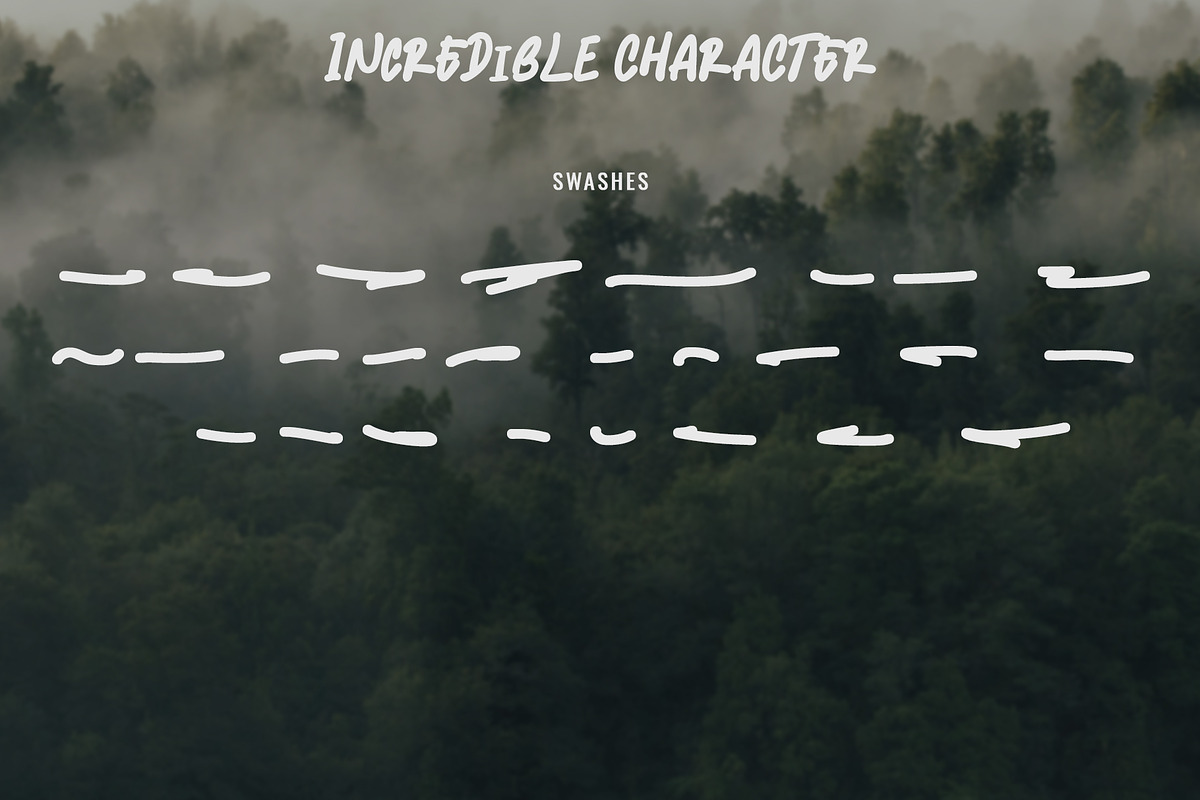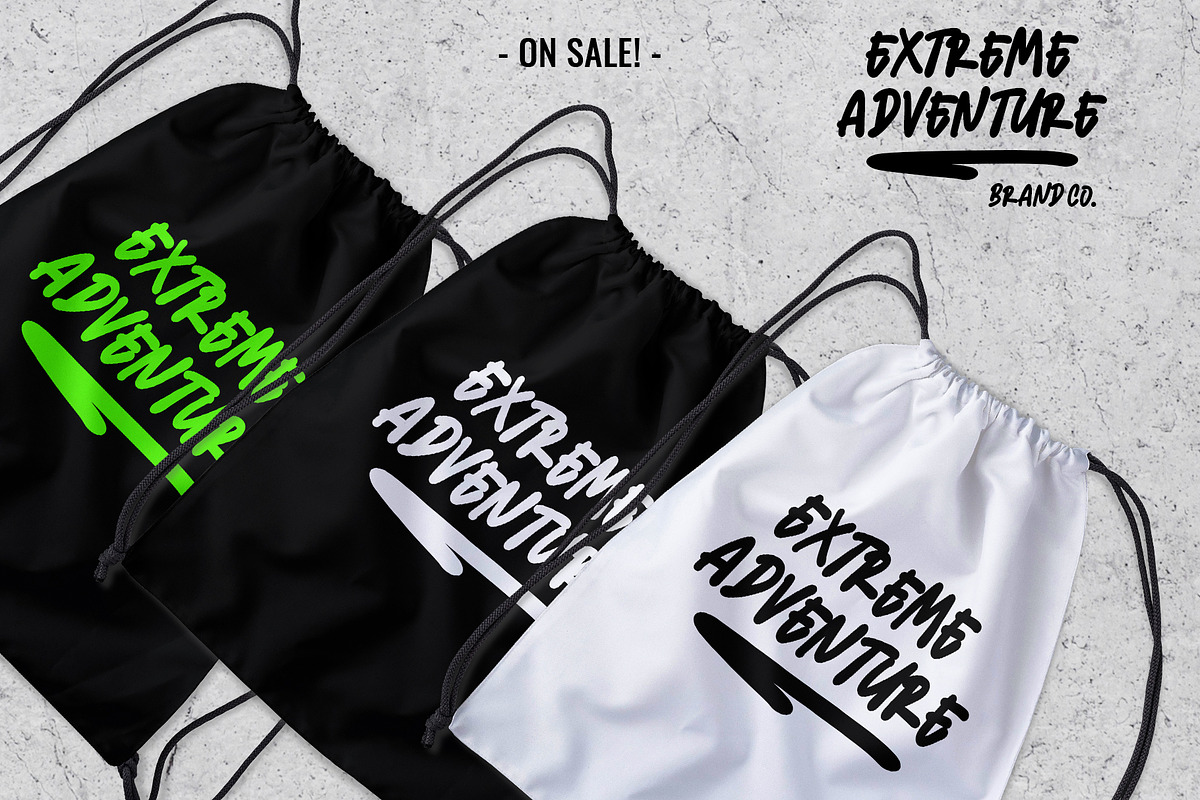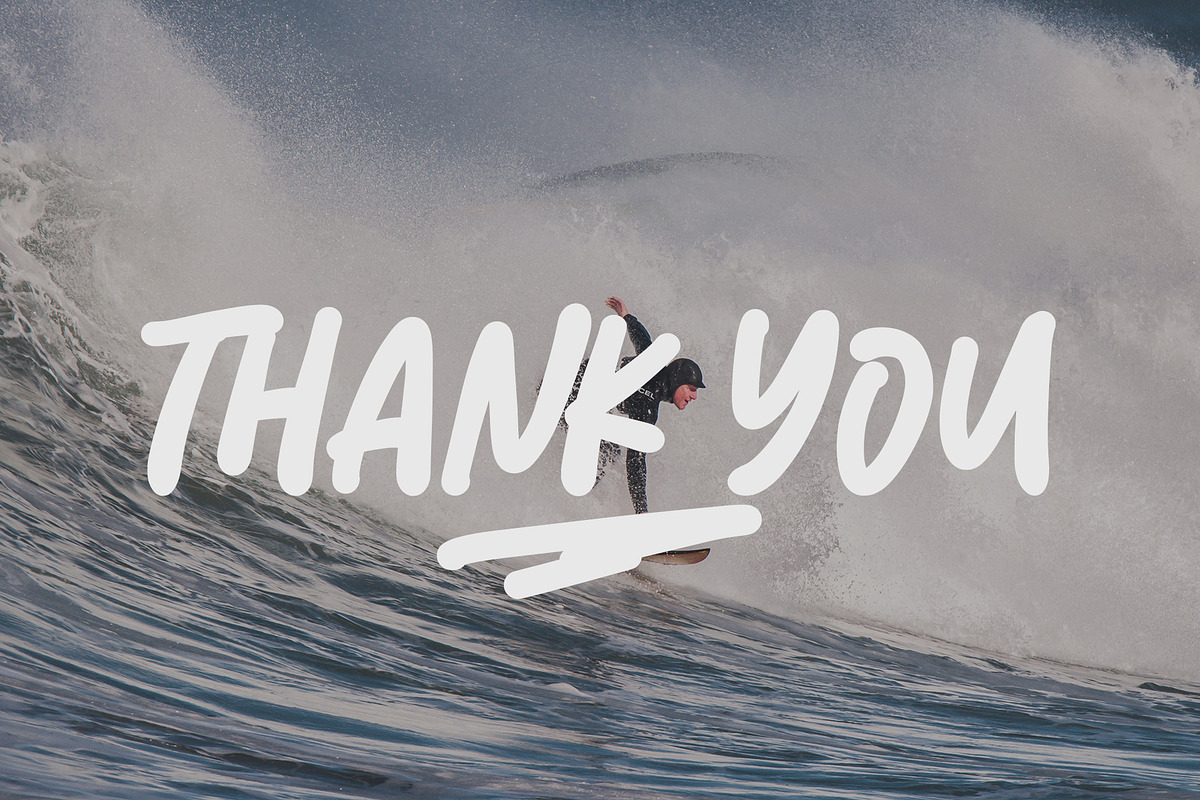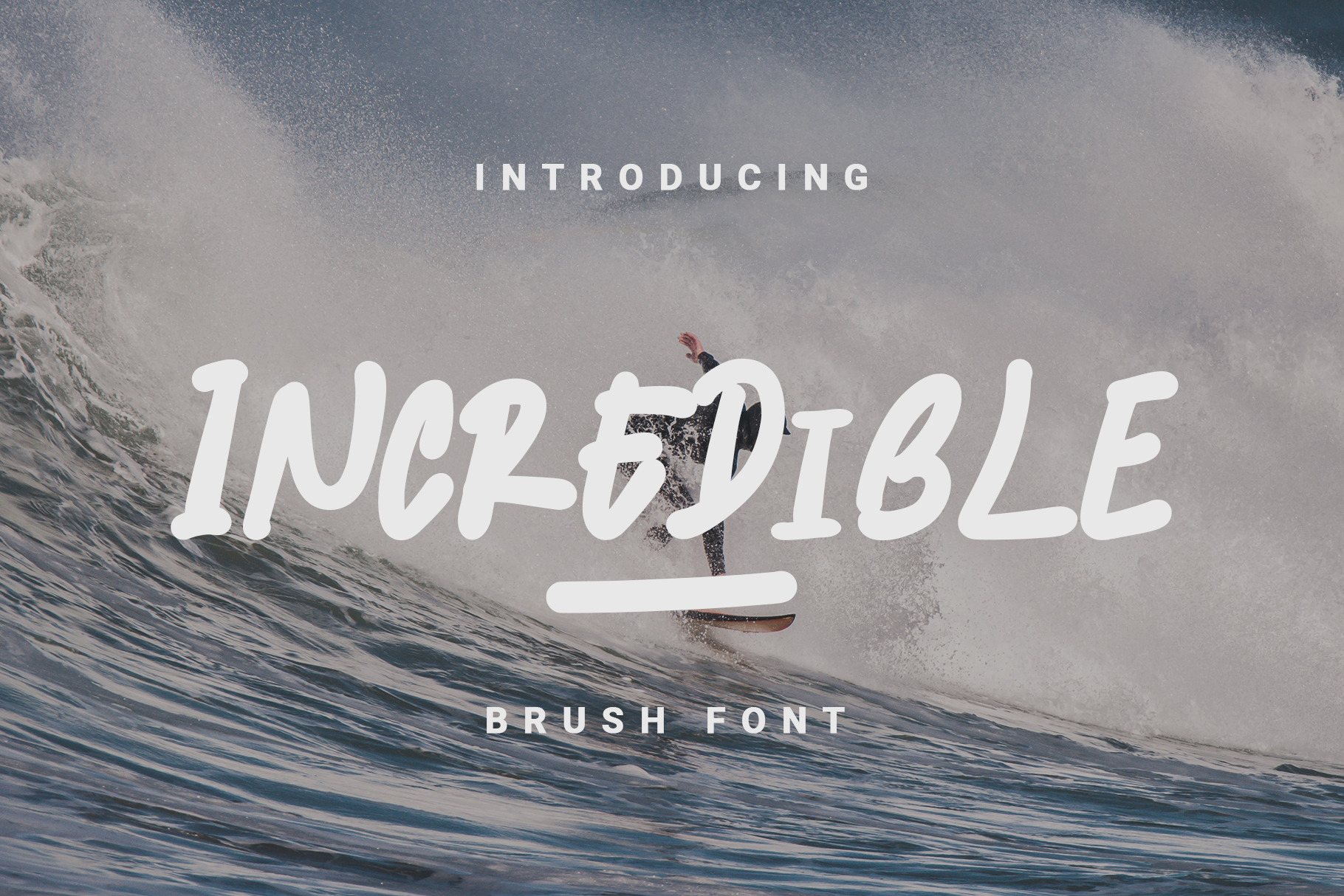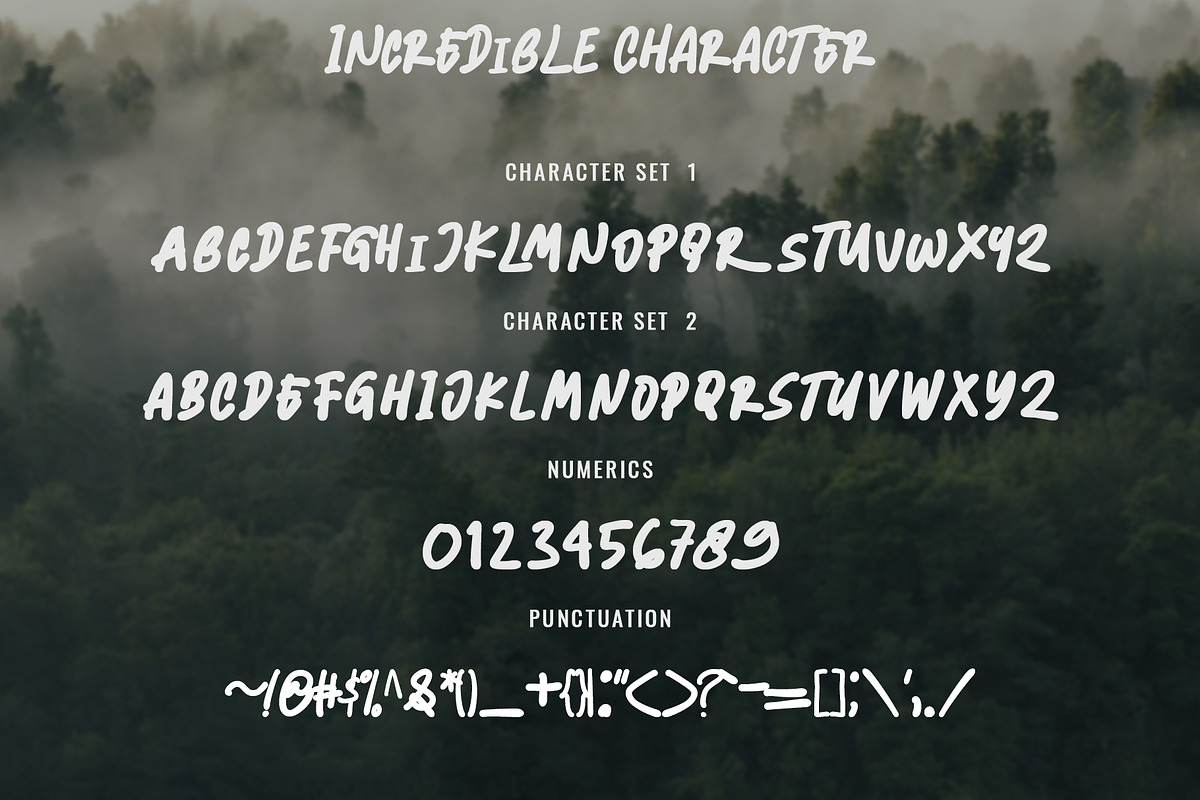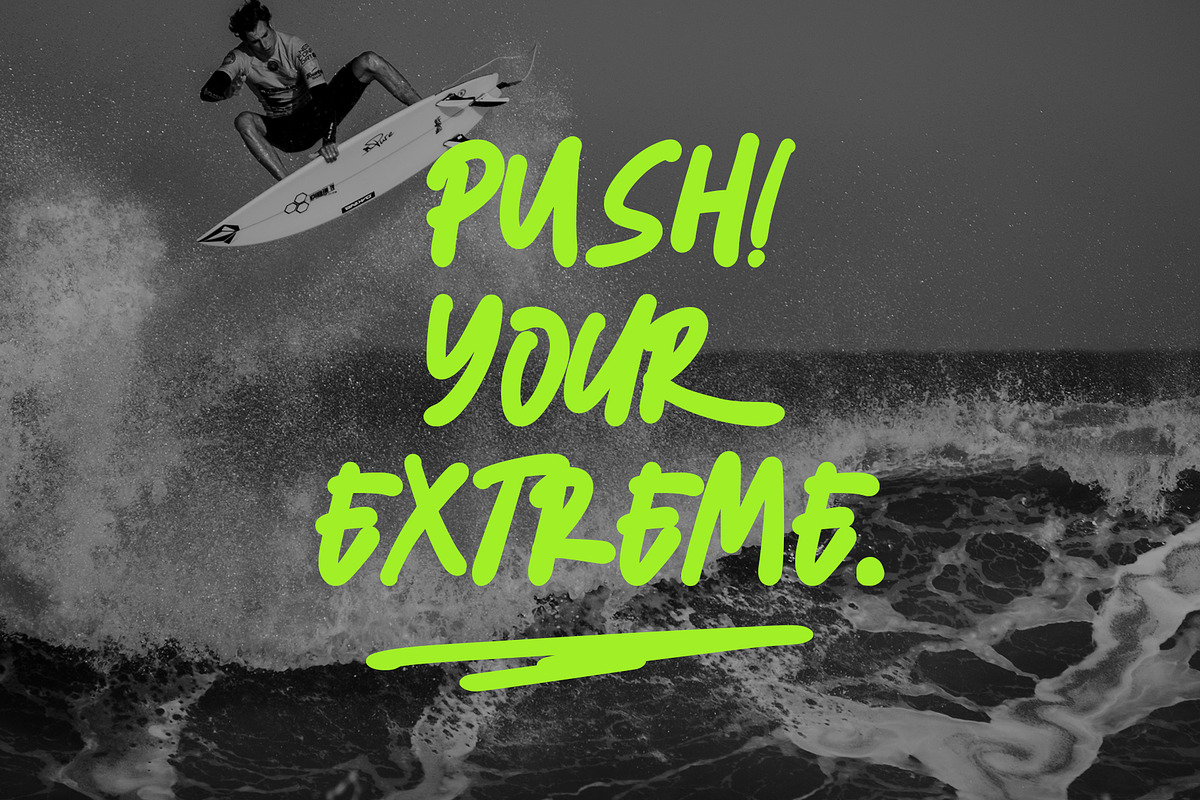
INCREDIBLE - Handwritten Font
INCREDIBLE is perfect for branding projects, logo, wedding designs, social media posts, advertisements, product packaging, product designs, label, photography, watermark, invitation, stationery and any projects that need handwriting taste.